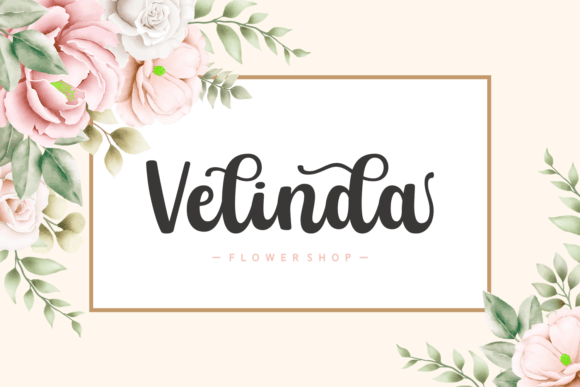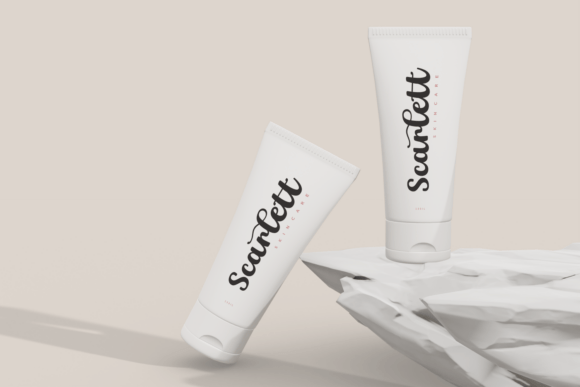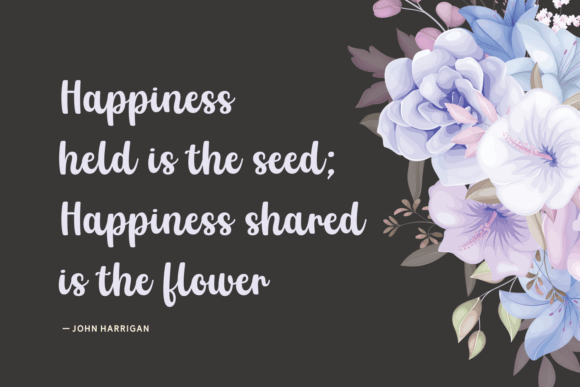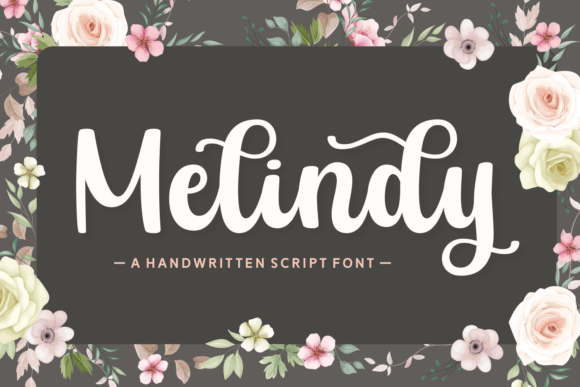
Introduction to Melindy Font
Melindy is a charming handwritten script font that combines boldness with elegance.
Its smooth curves and delightful swashes create a captivating and versatile typeface, perfect for wedding invitations, logos, stationery, and floral-themed designs Melindy brings a natural, romantic touch to any project.